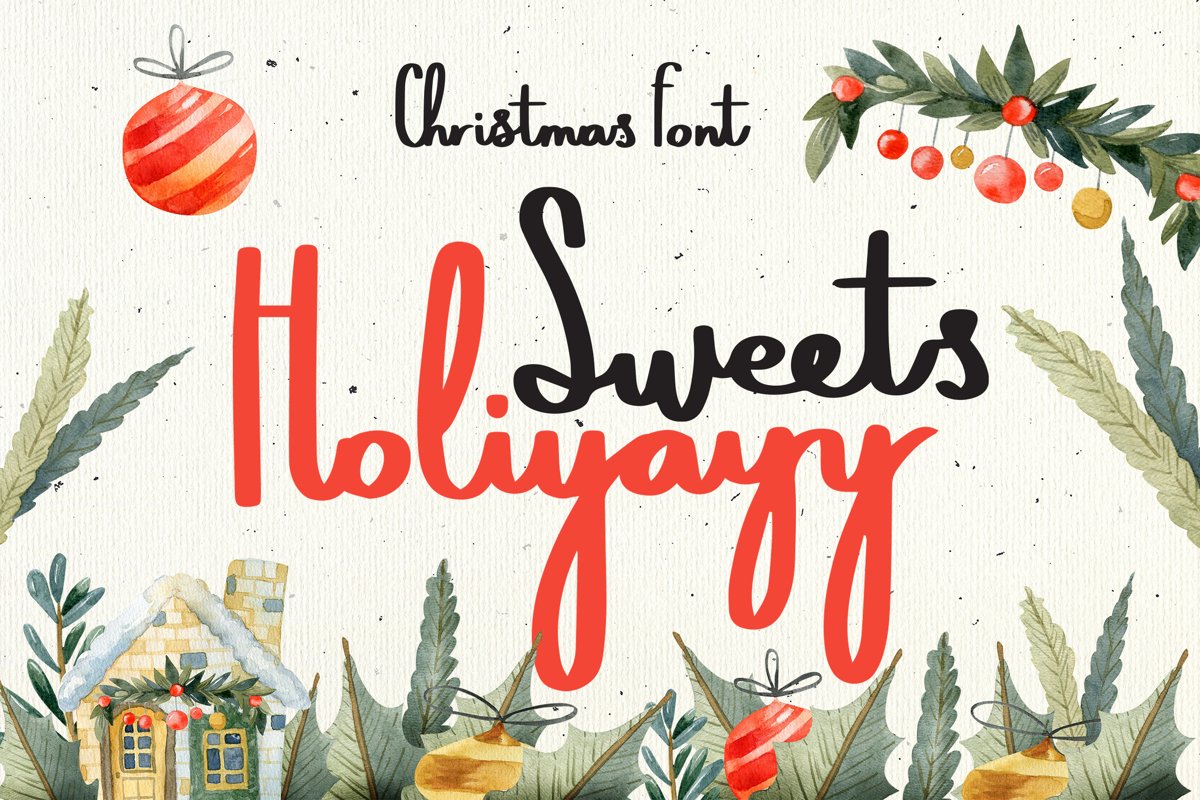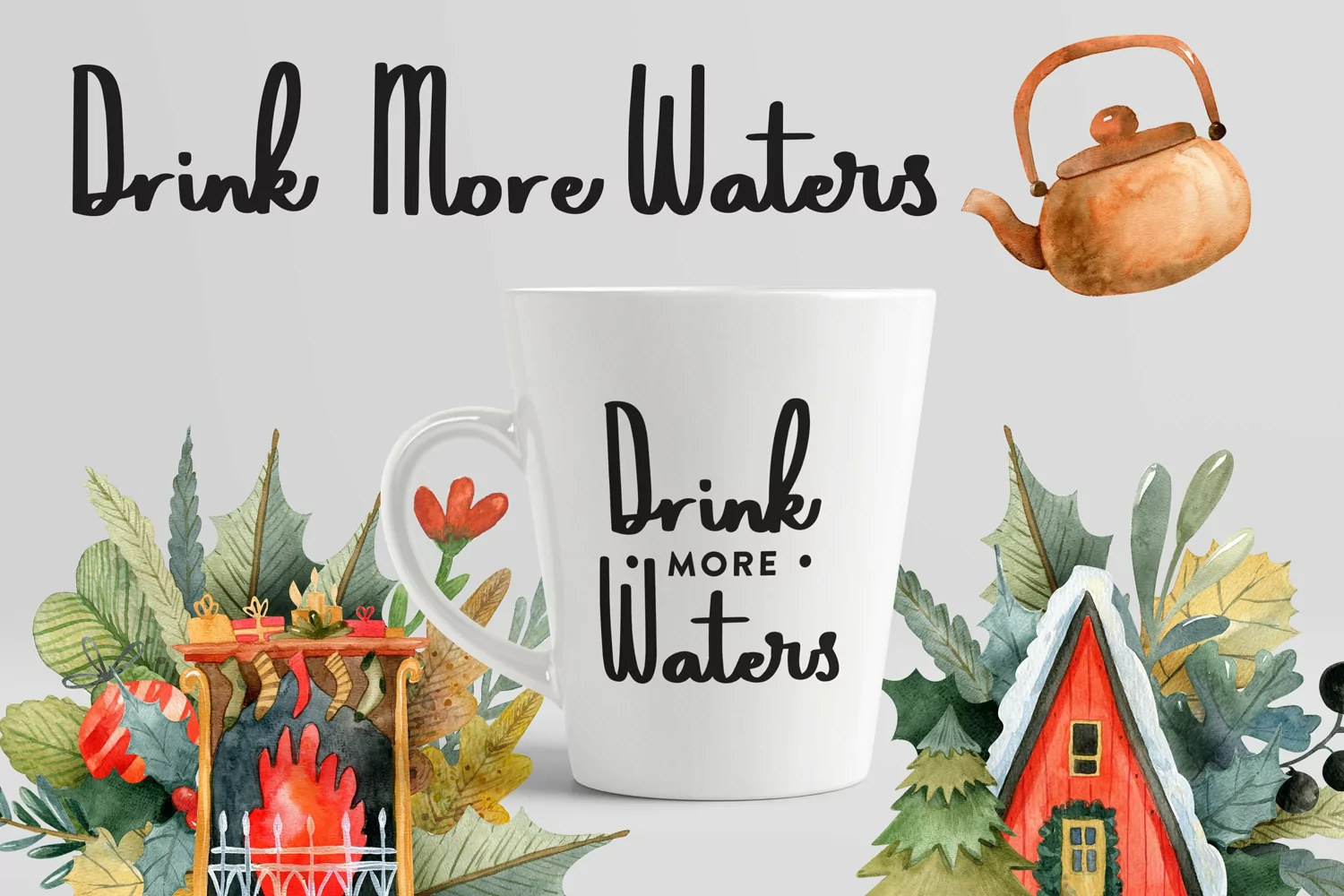
Sweets Holiyayy - Christmas Font that contain lowercase, uppercase, symbol, and also support multi language. There’s a lot ligatures in this font. This Font also comes with ligatures, alternates and many more. this font suitable for fashion, branding, catalog and other design what you want.